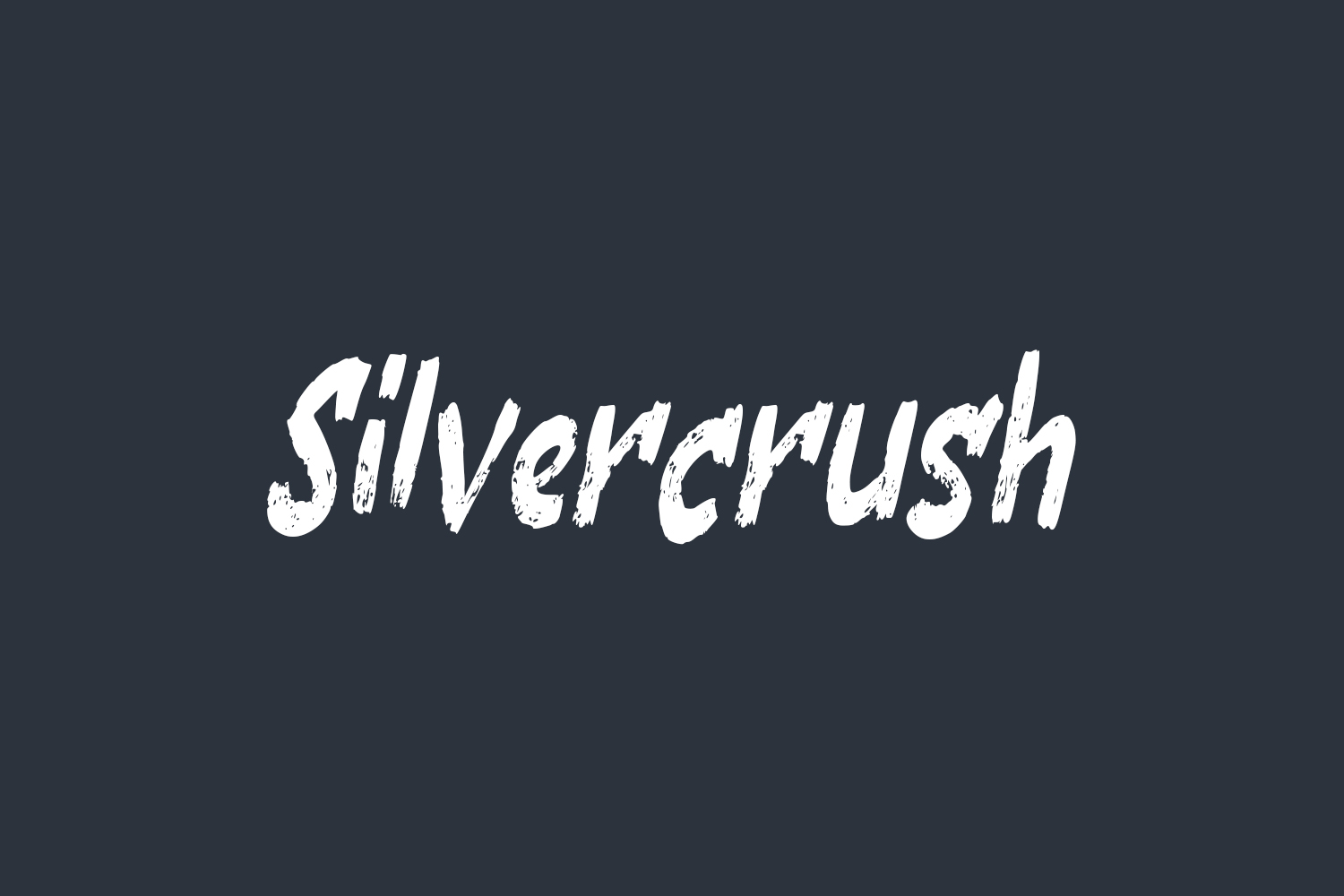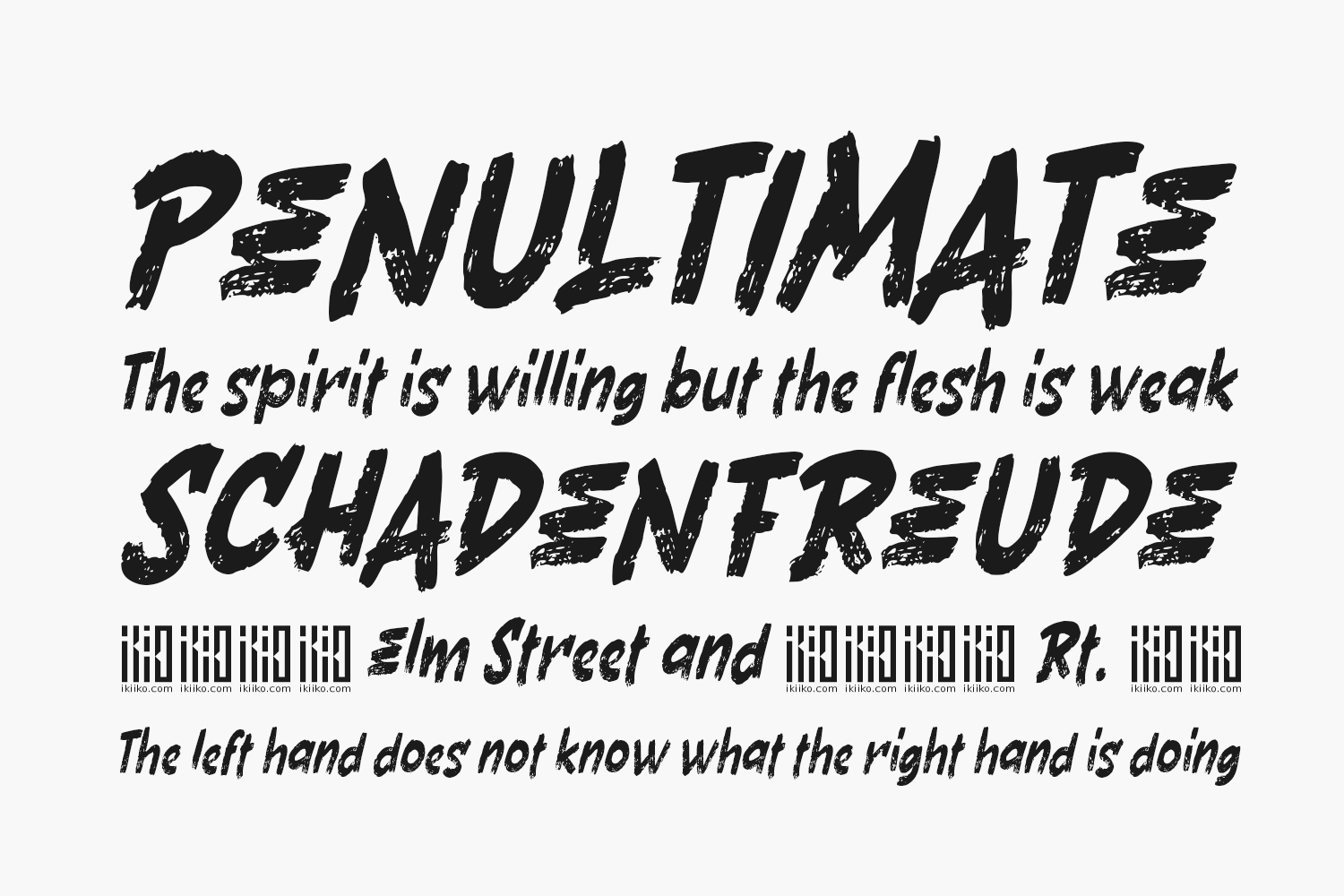
Silvercrush Free Font is a cool, graffiti-styled display font that has a street art vibe. This font is suitable for designs such as t-shirts, sportswear, logos, advertisements, clothing, and more. Silvercrush Free Font was designed by Alfin Ridhowi is a demo and free for personal use only. Please purchase the full version for commercial use.